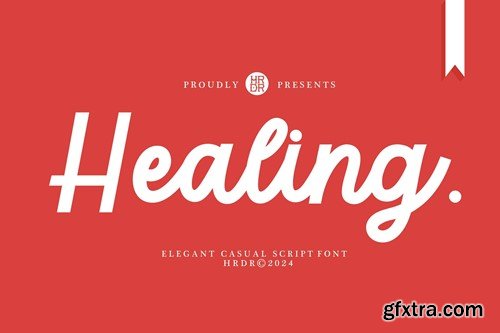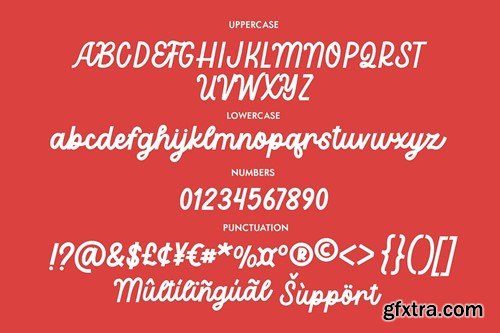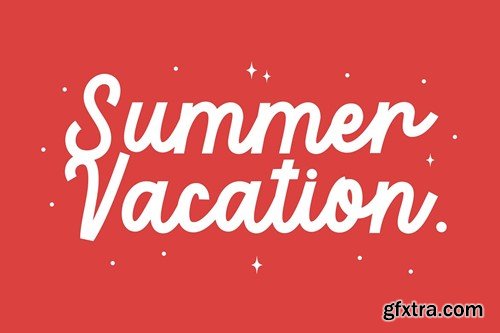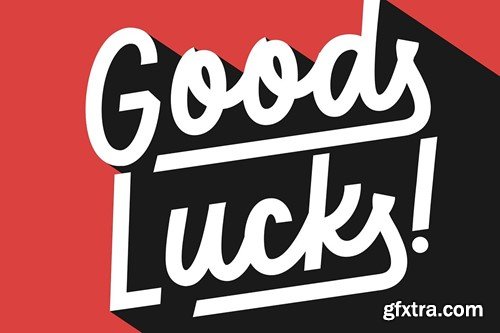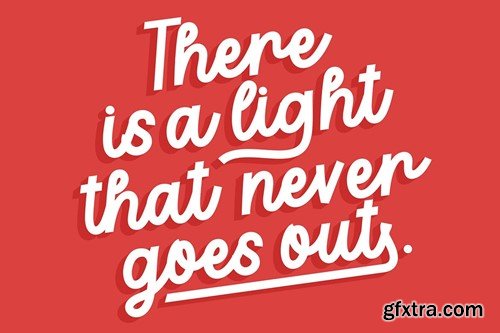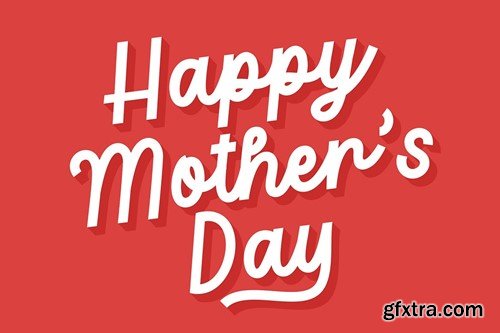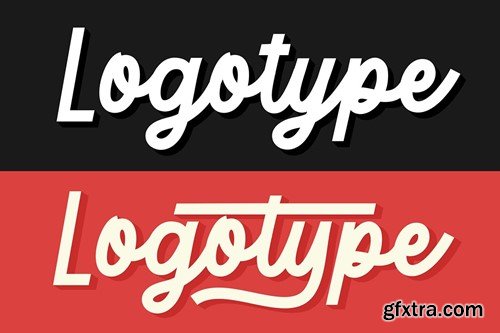
Healing - Modern Casual Script Font RBB5BSQ
Healing - Modern Casual Script Font
Healing is a new Casual script font with elegant style , perfect for crafting, branding, Logo, invitation, stationery, wedding designs, social media posts, advertisements, product packaging, product designs, label, Posters, photography, special events, or anything.
Font Features :
• Uppercase
• Lowercase
• numeric & Multilingual support
• Ligatures
• Stylistic Alternates with Ss01 and swash